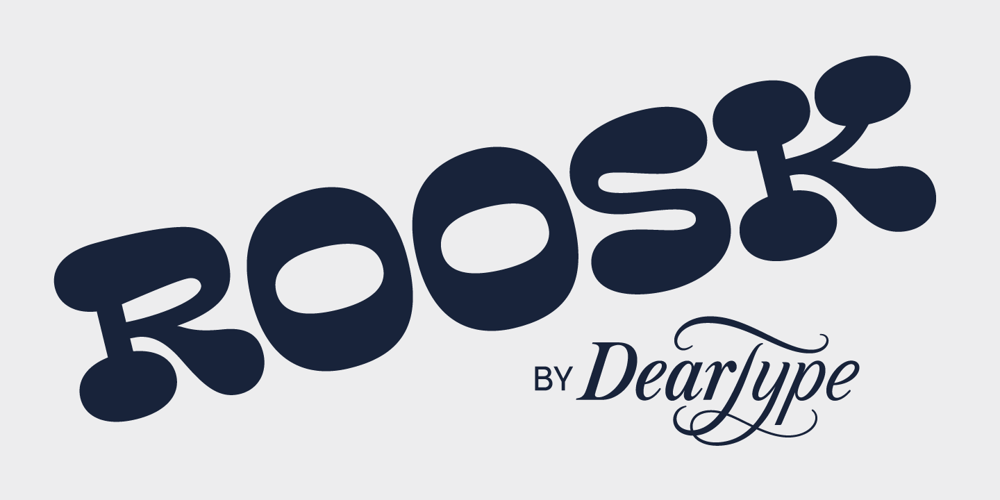
Roosk Font Family was designed by Veneta Rangelova and published by DearType. Roosk contains 1 styles and family package options. Roosk is a round, reverse-contrast serif designed for display usages. It bears a 70s influence as well as a subtle western vibe, although it’s more rounded and chunky. The font is a single weight, Caps only and sports a set of 450+ glyphs and some cute symbols such as hearts and floral hearts. Roosk has Cyrillic and All European Languages Support and is best suited for posters, headlines, editorial, merchandise and packaging.